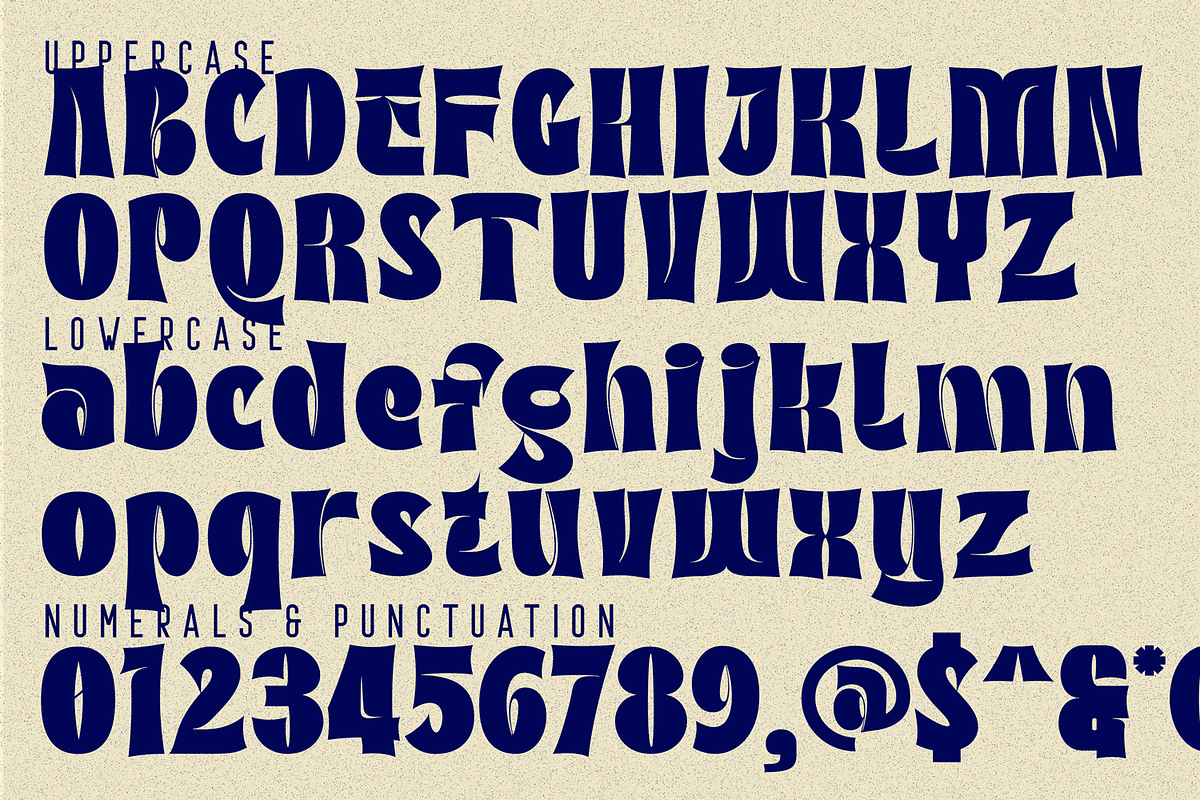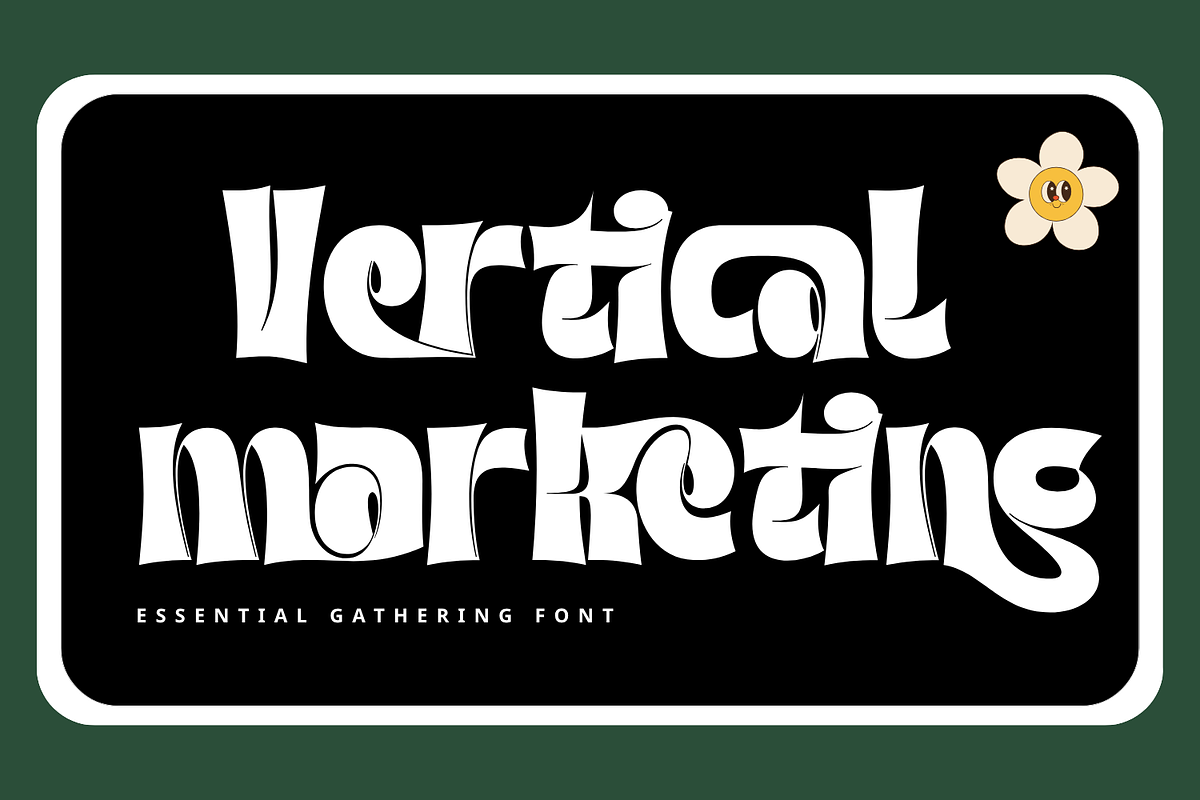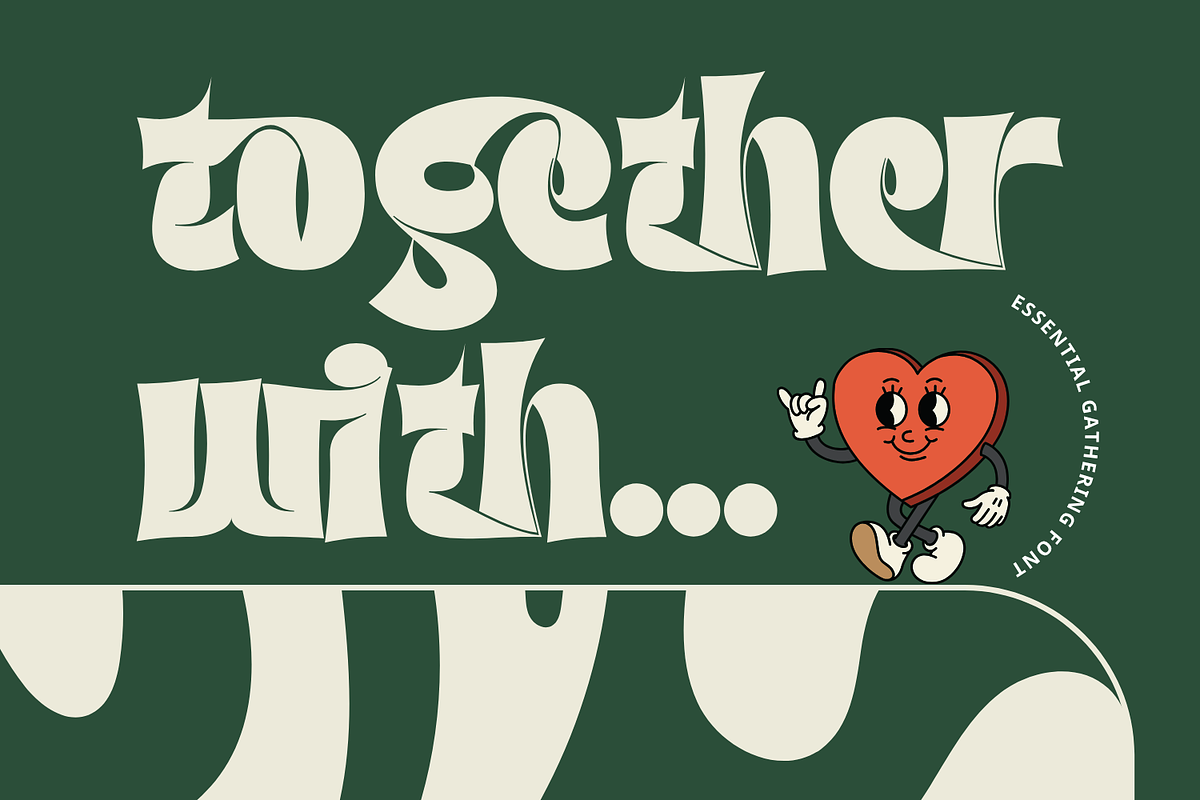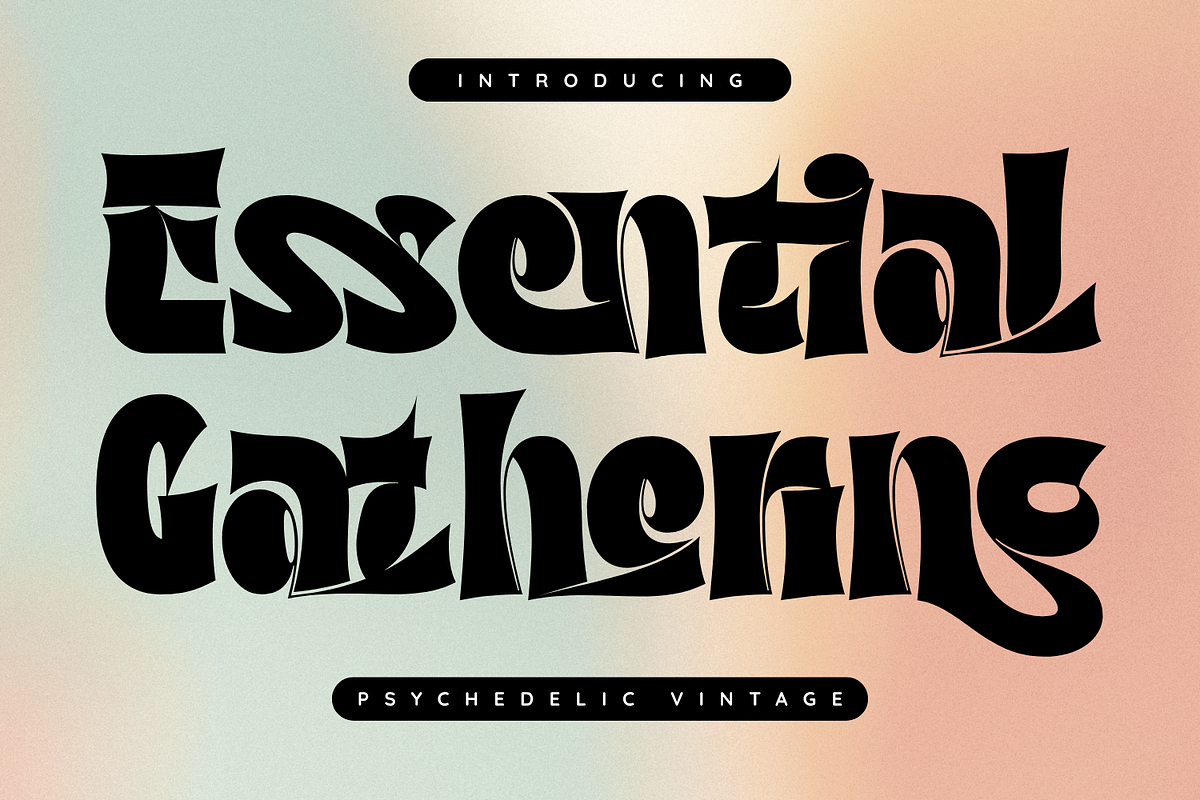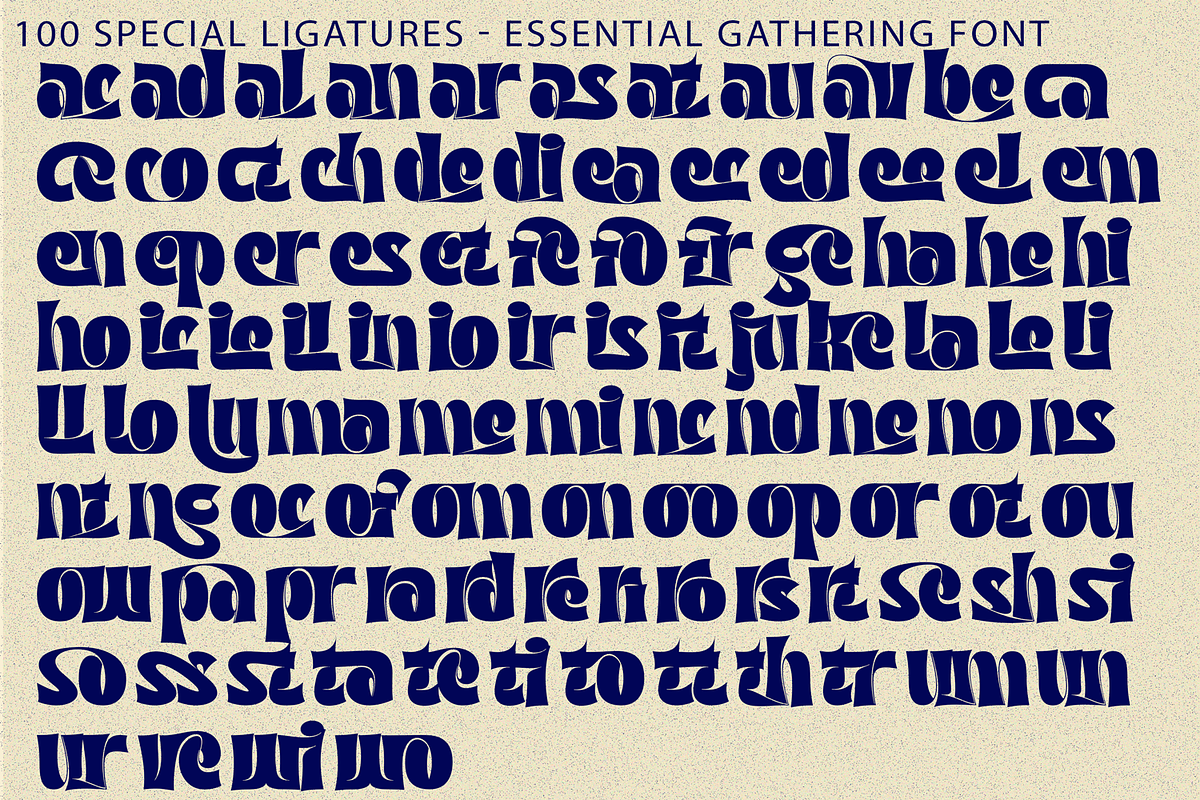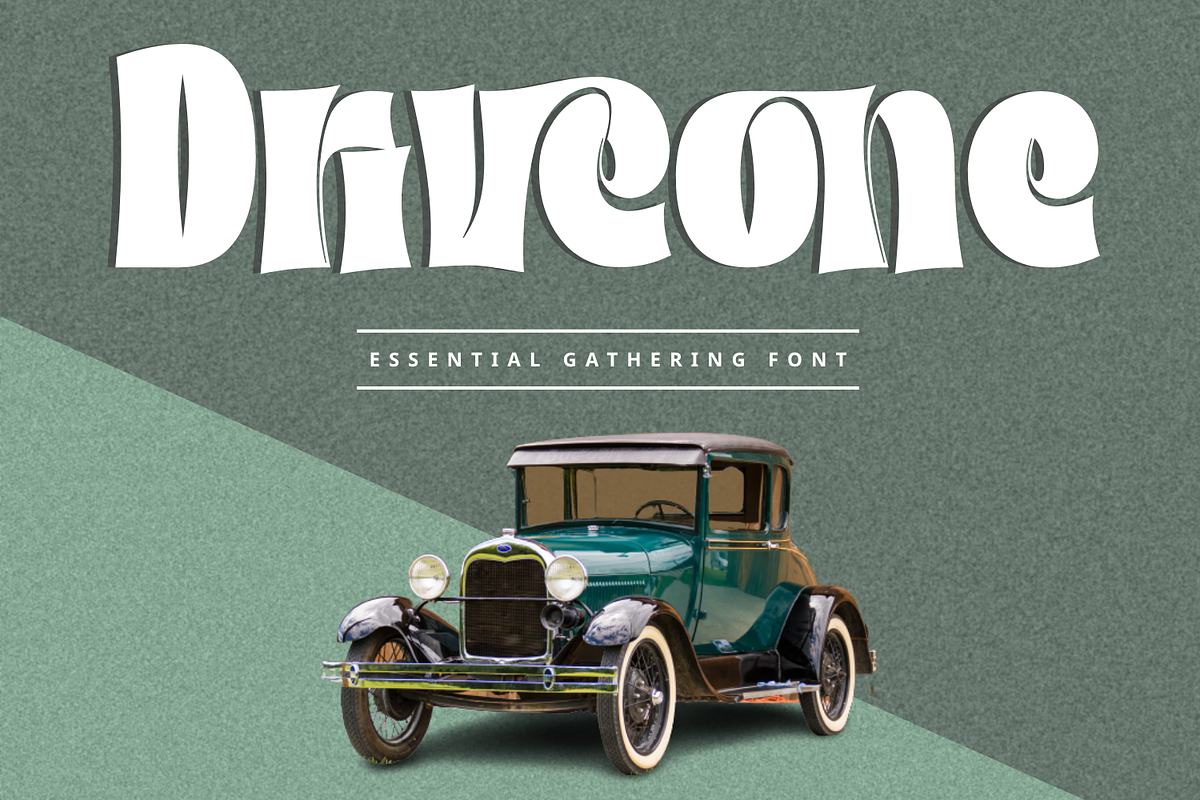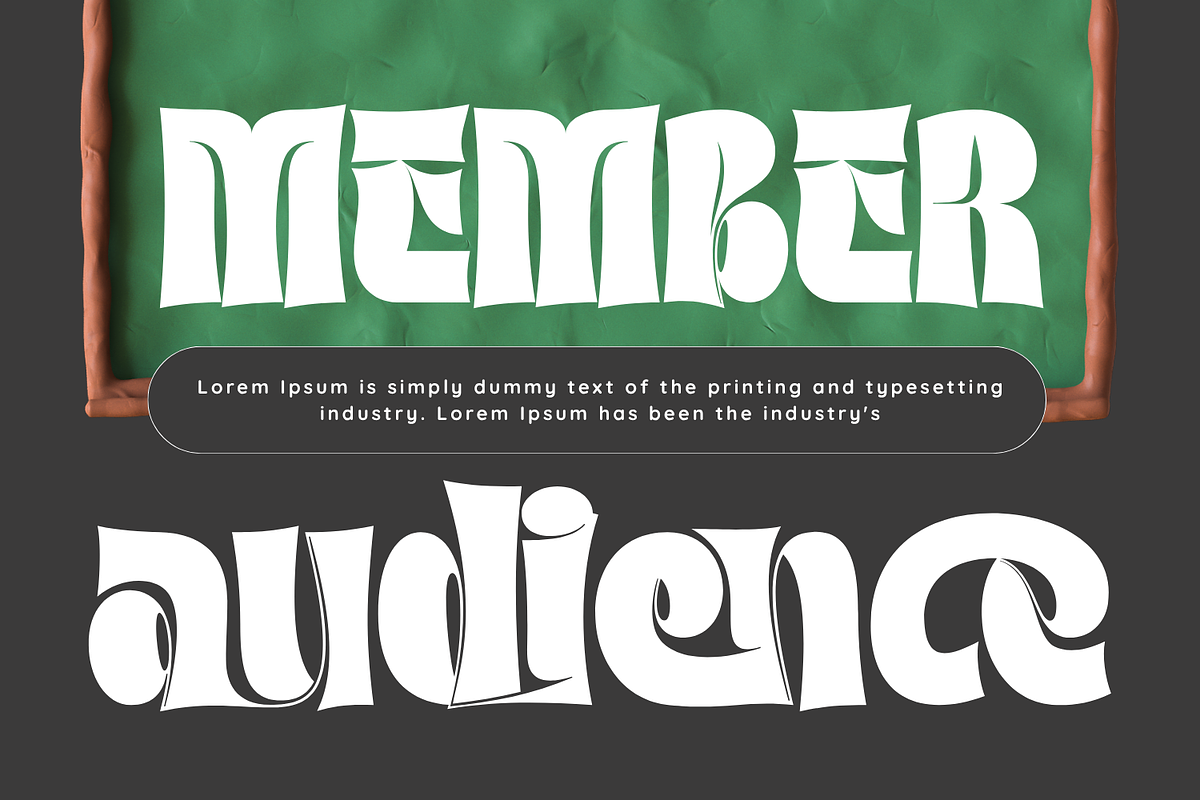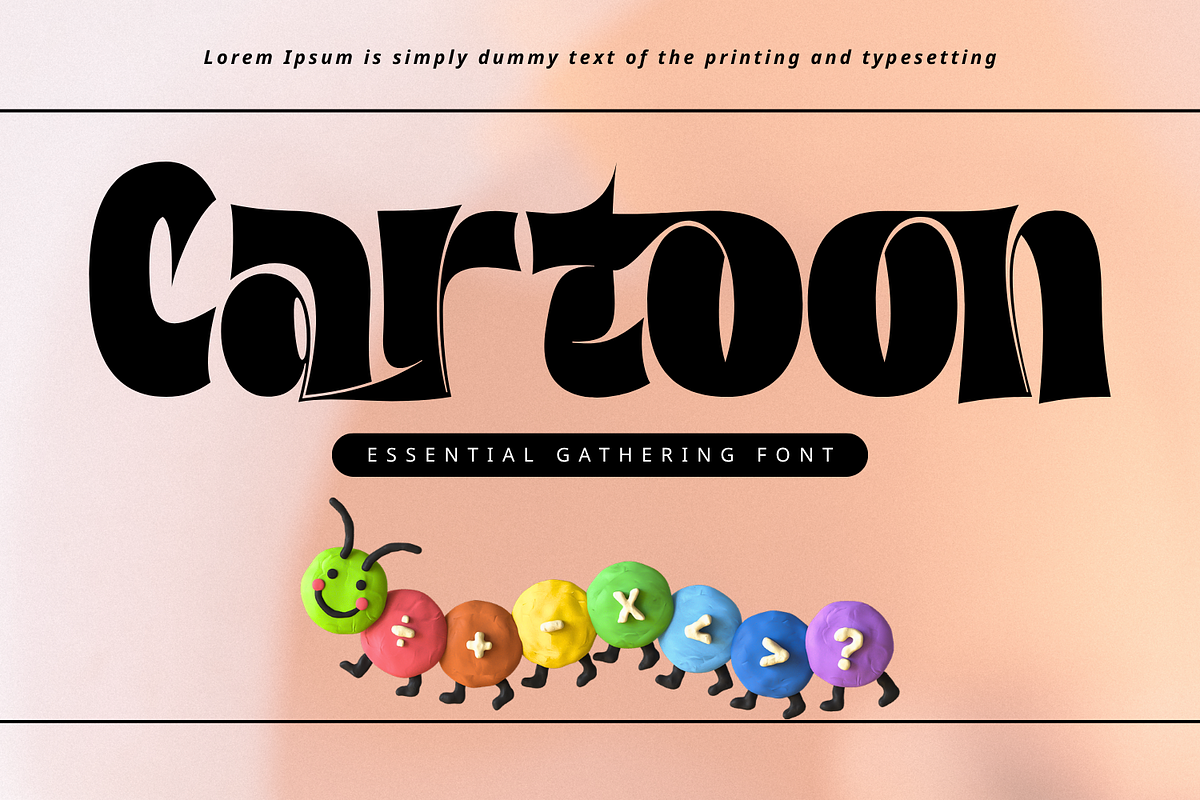
Essential Gathering - Psychedelic
Essential Gathering - Psychedelic Font is a bold retro psychedelic display font inspired by the vibrant visual culture of the 1960s and 1970s. Featuring chunky letterforms, flowing organic curves, and expressive vintage styling, this typeface captures the unmistakable spirit of classic groovy typography. Designed with dramatic proportions and playful character shapes, Essential Gathering blends nostalgic charm with artistic personality. Its soft curves, exaggerated terminals, and fluid transitions create a dynamic rhythm that instantly draws attention while maintaining excellent visual balance.
Uppercase & Lowercase Letters
Around 100 Special Ligatures & Alternates
Accented Characters for multilingual support
🔤About 100 ligatures combined with Stylistic Alternates Font:
ac ad al an ar as at au av be ca ce ch co ct de di ea ec ed ee el em en ep er es et fe fo fr ge ha he hi ho ie ic il in io ir is it ju ke la le li ll lo ly ma me mi nc nd ne ng no nt ns oc of om on oo op or ot ou ow pa pr ra rd re ri ro rs rt se sh si so ss st ta te th ti to tr tt um un ur ve wi wo